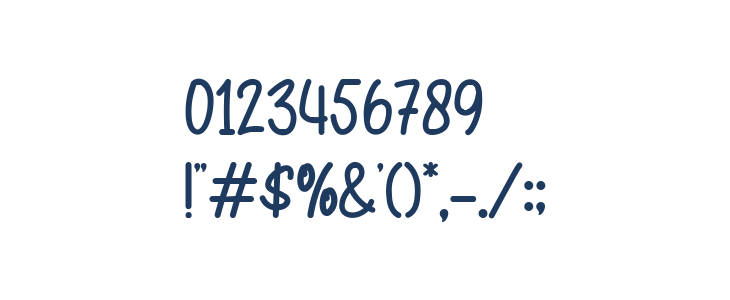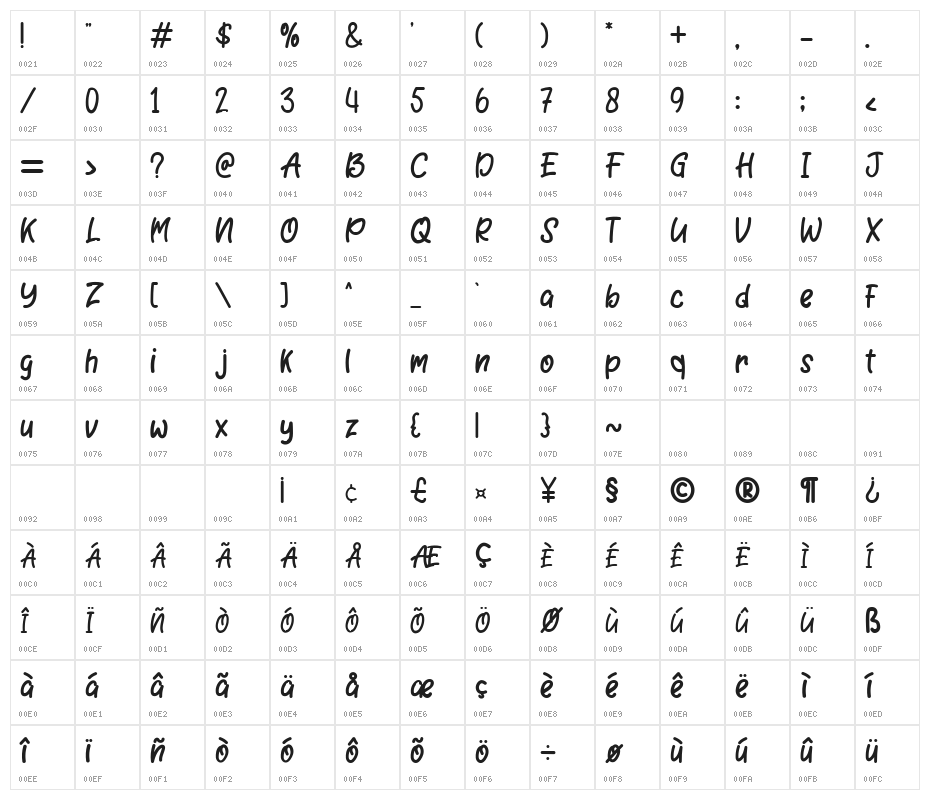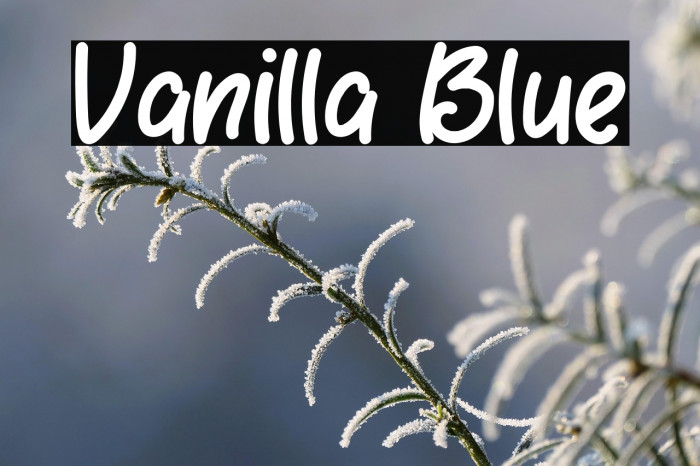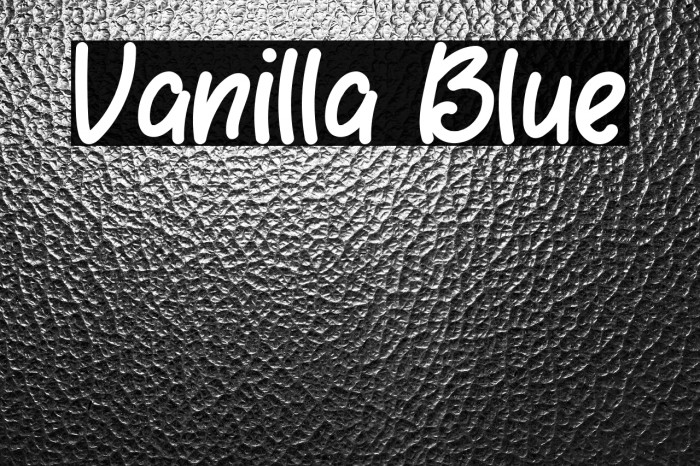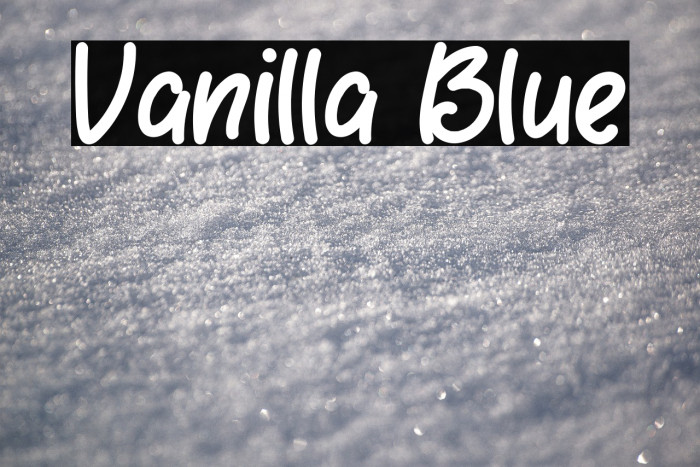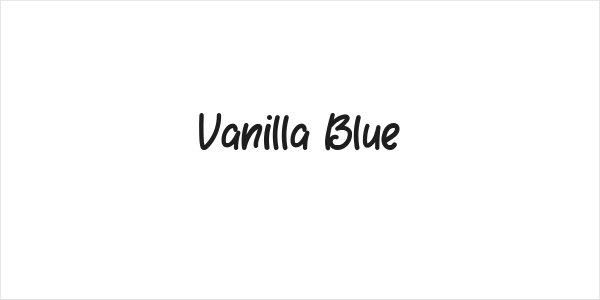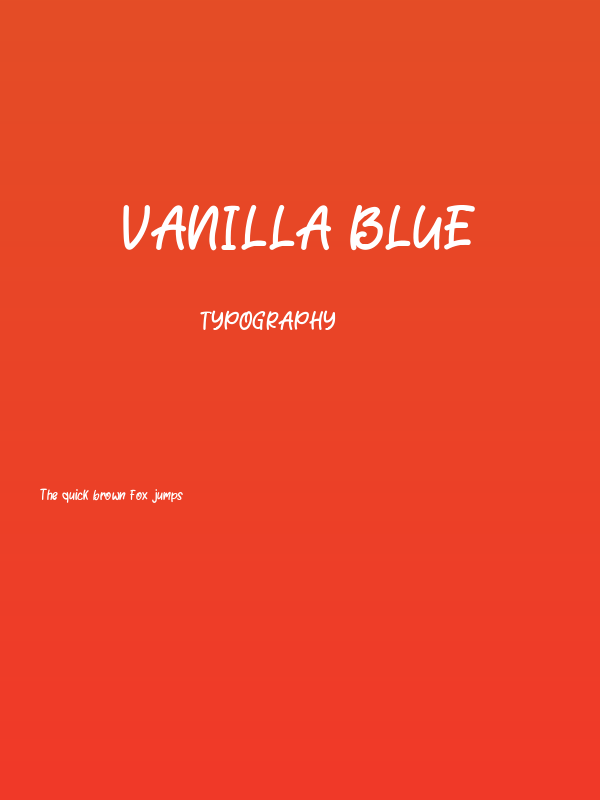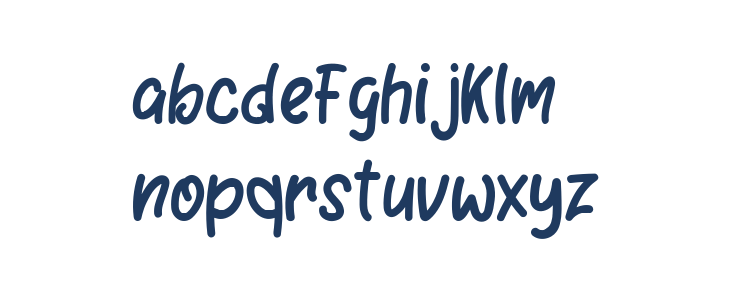
Vanilla Blue Font
Vanilla Blue Description
This playful and energetic font features a handwritten style that exudes a sense of fun and creativity. The letters are bold and slightly rounded, giving them a friendly and approachable appearance. The strokes are consistent in width, providing a uniform look across all characters. The uppercase and lowercase letters maintain a cohesive style, with a slight slant that adds to the casual feel. Numbers and special characters are designed to match the overall aesthetic, ensuring versatility in various design contexts. The font's informal nature makes it ideal for projects that require a personal touch.
| Overall Style | Playful |
| Use Case | Headlines, Logos, Informal Text |
| Proposed Projects | Perfect for greeting cards, children's books, playful branding, and social media graphics. |